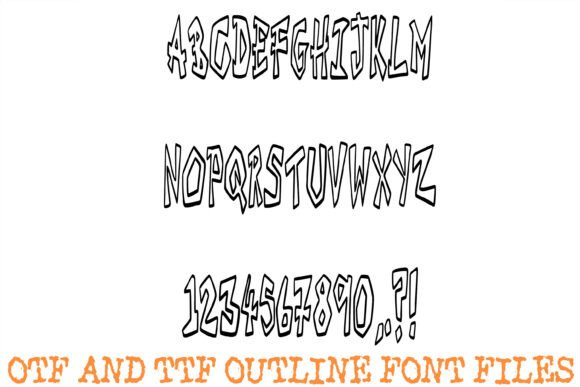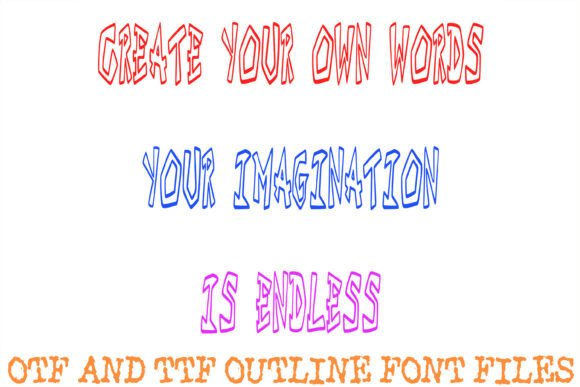
The Font That Captures the Energy of the City
You know that moment when inspiration strikes and you’re racing against the clock to bring your creative vision to life? The rush of adrenaline as ideas pour out, and the need for a font that can keep up with your frantic pace? That’s where the Frantic Urban Font comes in – a high-energy display typeface designed to capture the restless spirit of city life.
With its irregular, hand-drawn letterforms and sharp, geometric construction, this font is perfect for designers working on streetwear branding, alternative music posters, and underground zine layouts. The Frantic Urban Font provides a handcrafted, rebellious aesthetic that cuts through the noise of traditional typography, making it a valuable asset for any designer looking to create bold, attention-grabbing graphics.
- Unique Characteristics: Frantic Urban Font features a bold, distressed look with rough edges and imperfections, giving it a gritty, urban feel that’s perfect for designs that need a edgy touch.
Designer Review: Frantic Urban Font
I recently had the chance to work with the Frantic Urban Font, and I must say it’s a unique and attention-grabbing addition to any design project. ✨ The font’s distressed, urban feel is perfect for creating a gritty, edgy aesthetic, making it ideal for punk rock bands, street art, or even a trendy restaurant.
- ✨ The font’s high level of customization: from adjusting the texture to tweaking the letter spacing, Frantic Urban Font offers a high degree of control.
- ✨ The wide range of font sizes: from small to large, you can easily scale the font to fit your design needs.
- ✨ The distressed, hand-drawn feel: adds a touch of authenticity to your designs.
- ⚠️ Limited character set: Frantic Urban Font may not have all the characters you need, which can be frustrating when trying to use it for longer blocks of text.
- ⚠️ May not be suitable for body text: while it’s perfect for headings and titles, the font may be difficult to read when used for large blocks of text.
Overall, I’d say Frantic Urban Font is a great addition to any designer’s toolkit. It’s perfect for projects that require a bold, edgy look, and its customization options make it a great choice for designers who want to add a personal touch to their work.
Some tips for getting the most out of Frantic Urban Font include:
– Using it for headings and titles to add a touch of urban sophistication.
– Experimenting with different font sizes and colors to create visual hierarchy.
– Combining it with other fonts to create a unique and eye-catching design.